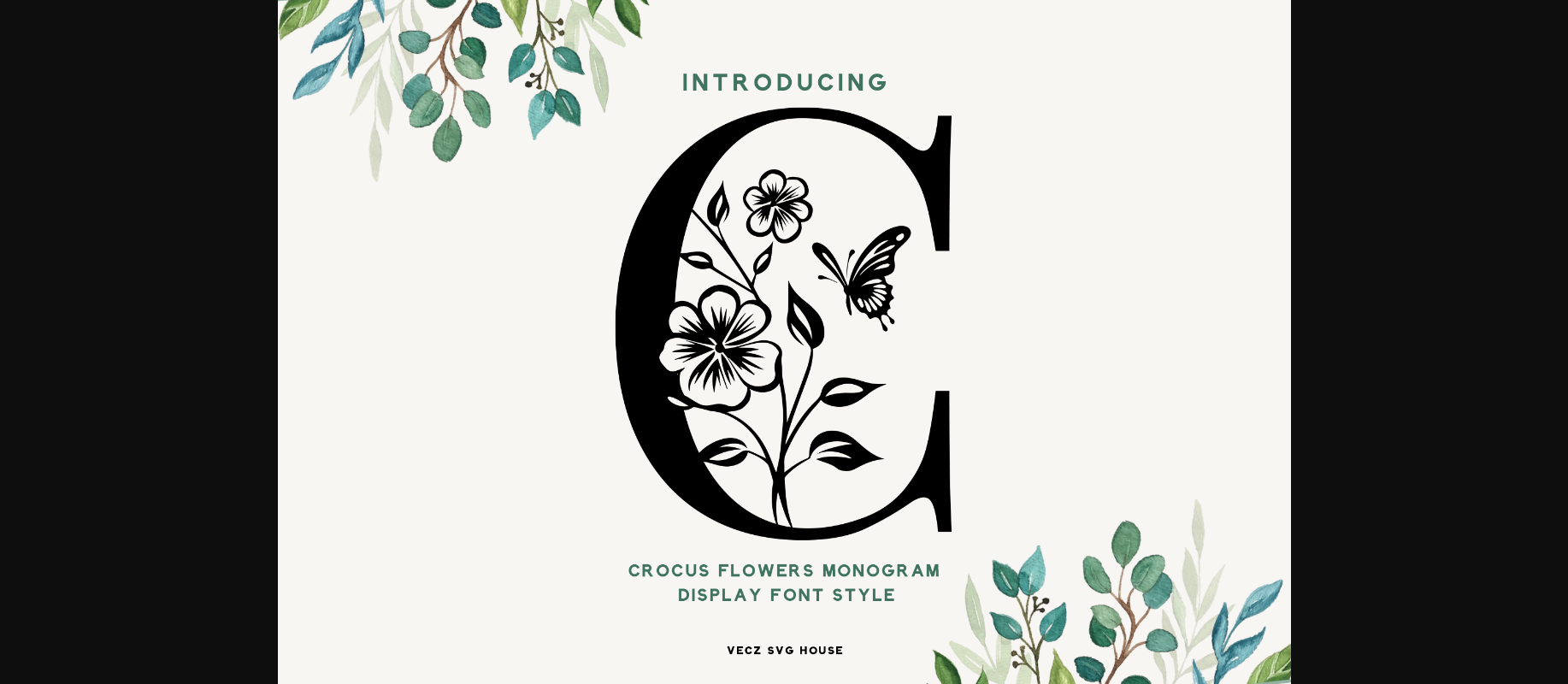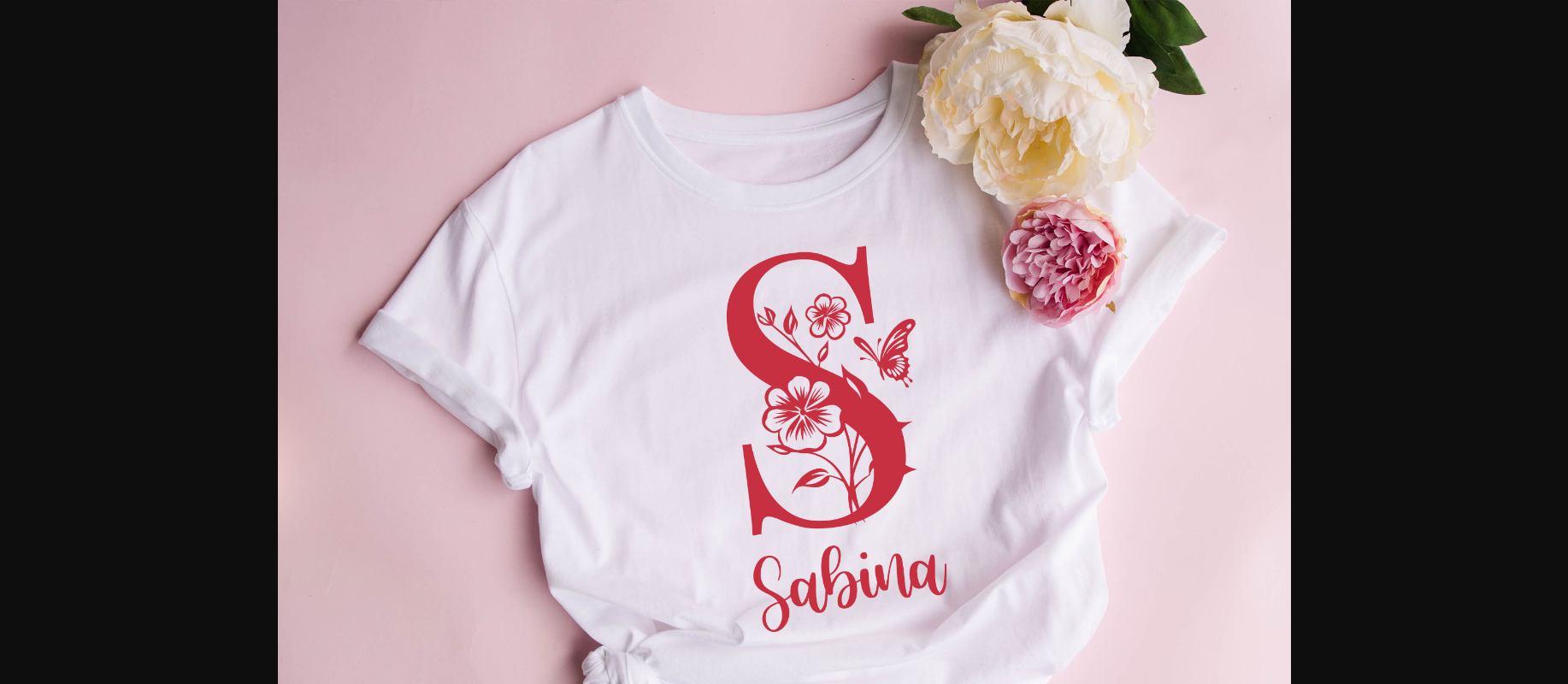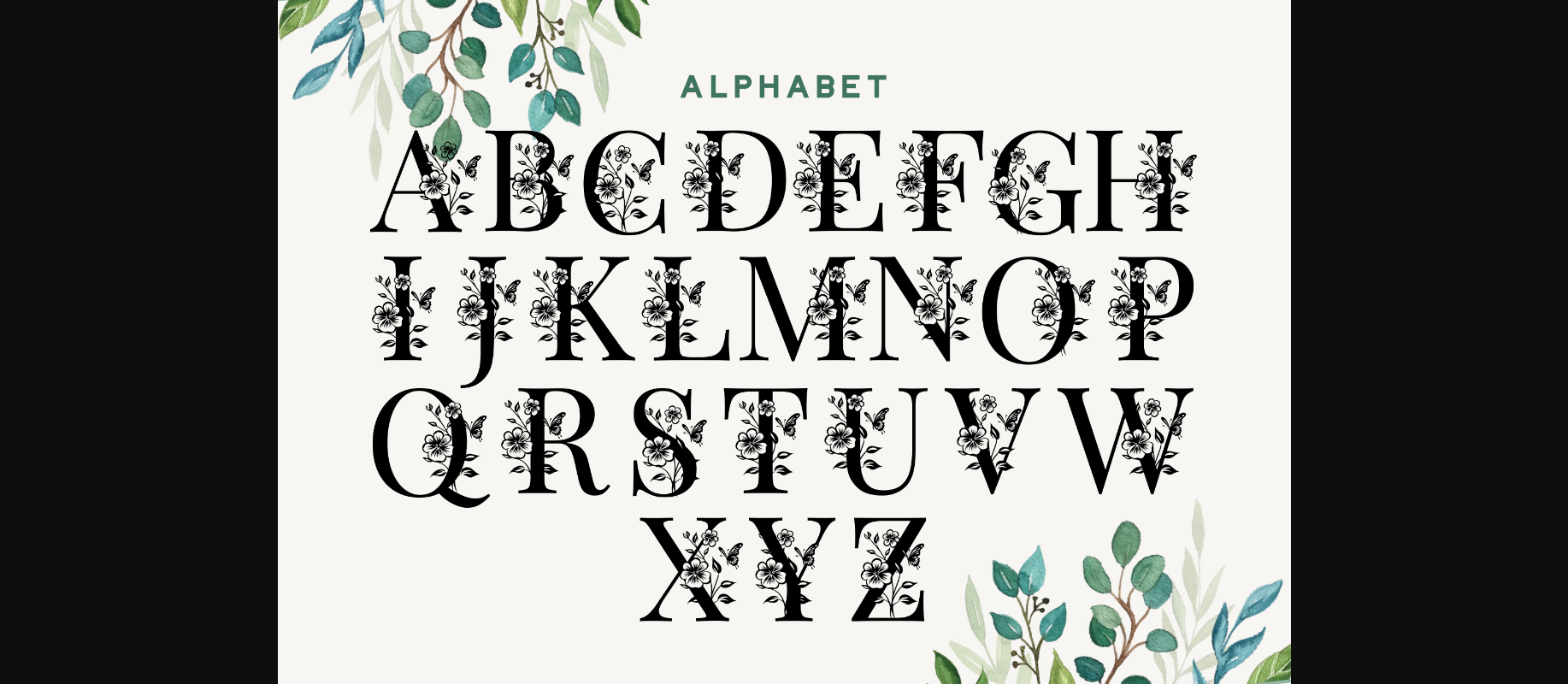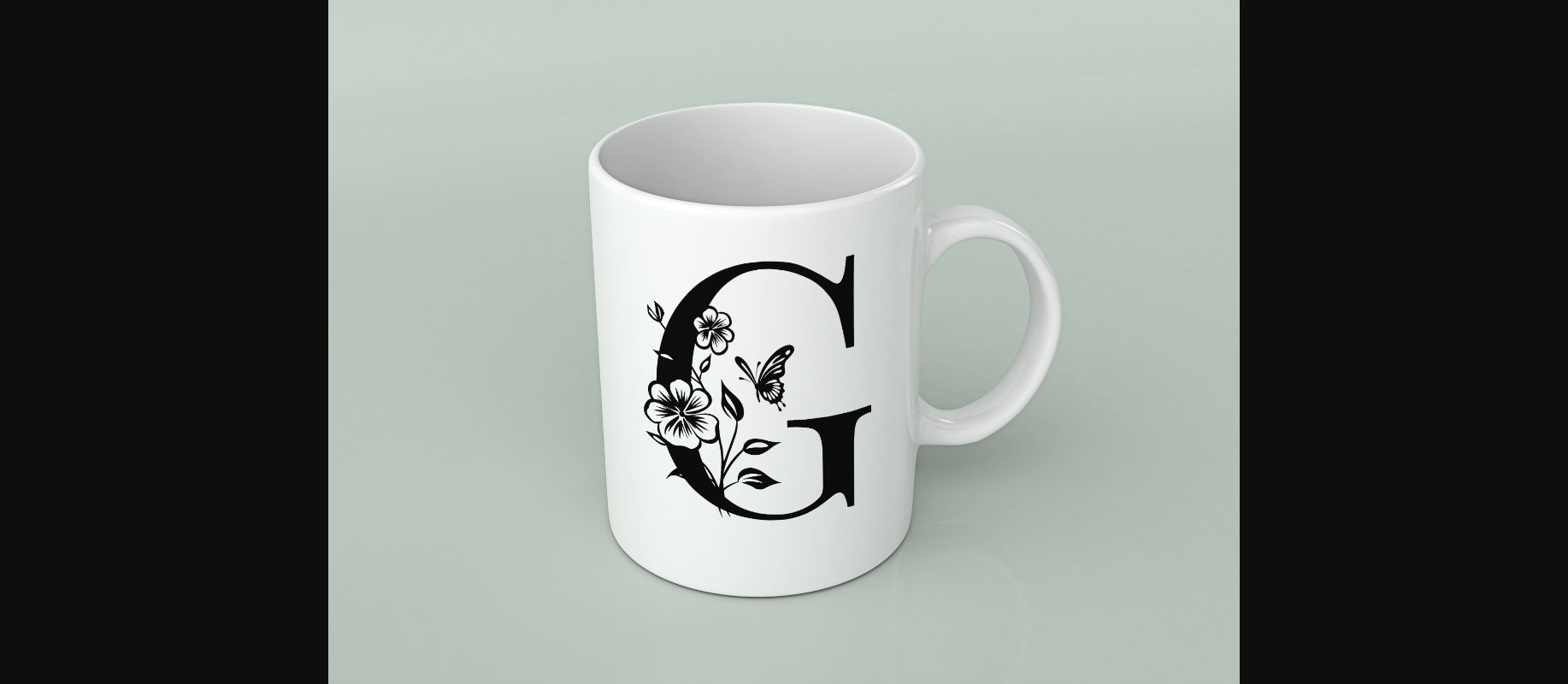
Crocus Monogram Font
About Crocus Monogram Font
The “Crocus Flower Monogram ” is a stunning typographic creation that encapsulates the delicate beauty of the crocus flower in a monogram design. This unique font embodies elegance, sophistication, and a touch of whimsy, making it the perfect choice for projects that require a blend of style and charm.
The Crocus Flower Monogram Font exudes a sense of serenity with its clean lines and harmonious proportions. Its versatile nature allows it to be used in various design contexts, from elegant wedding invitations and high-end branding to floral-inspired logos and decorative monograms. The font’s captivating charm adds a touch of enchantment to any project it graces.